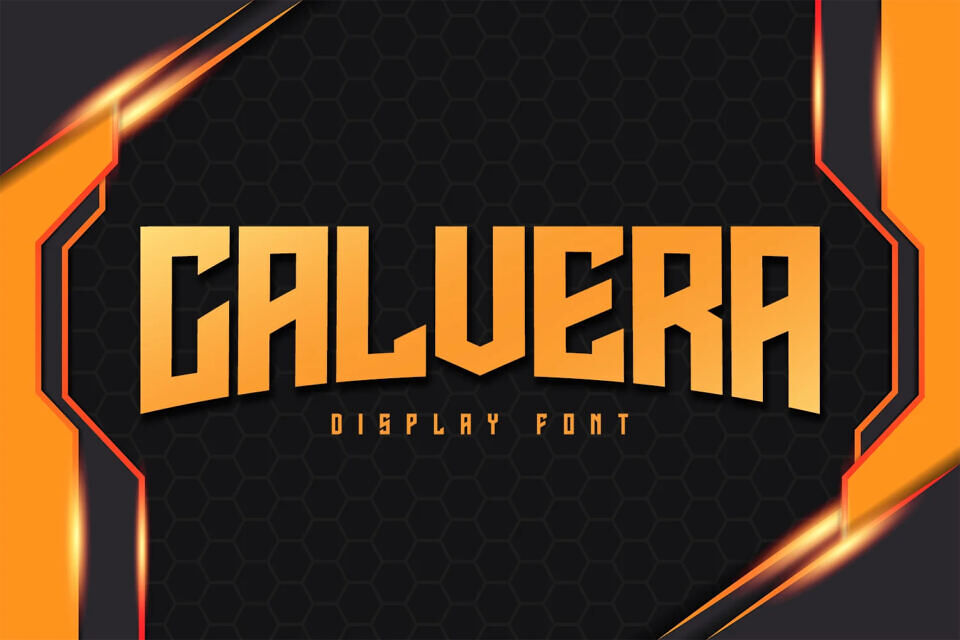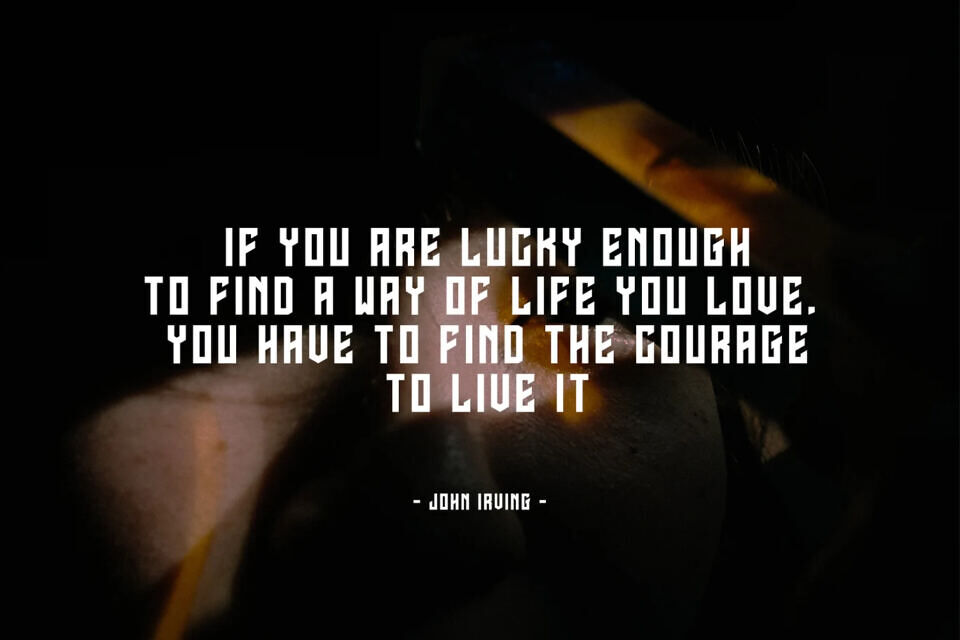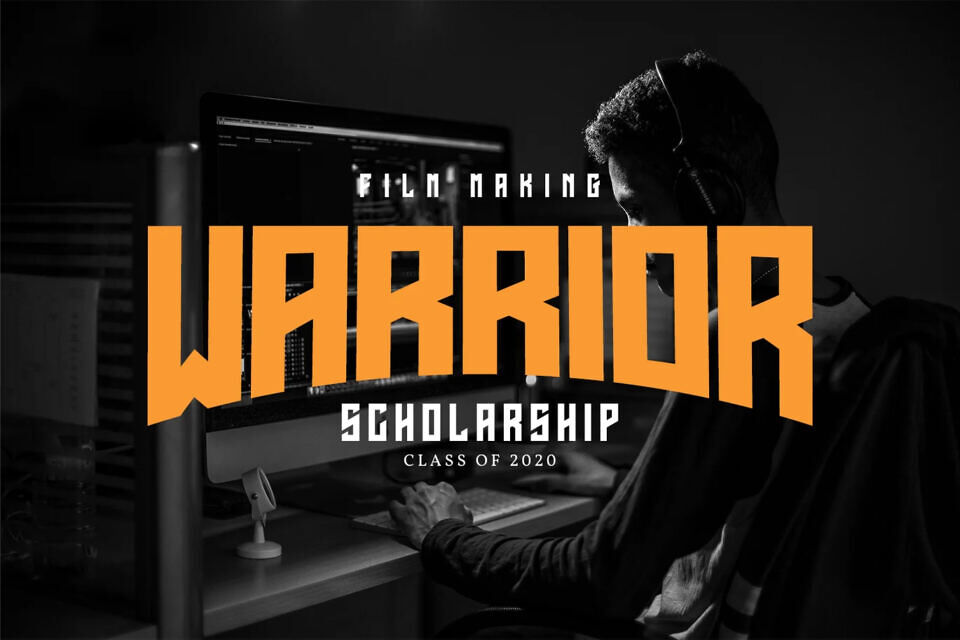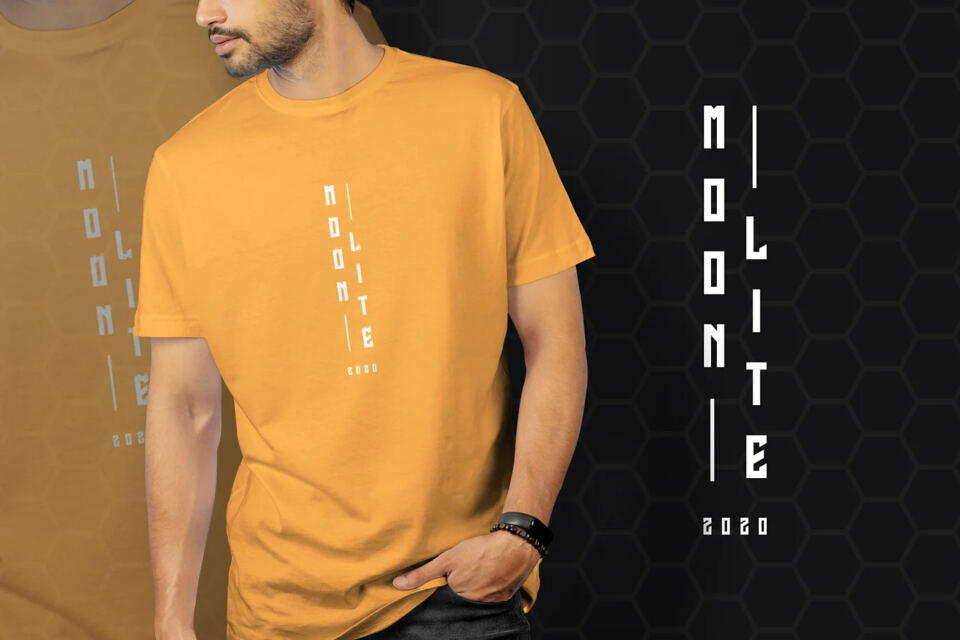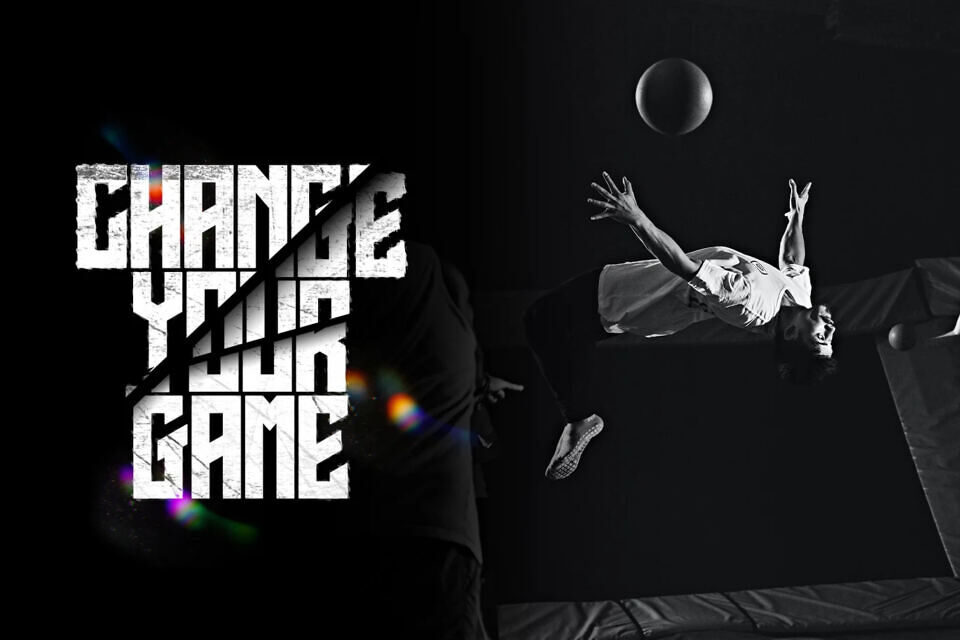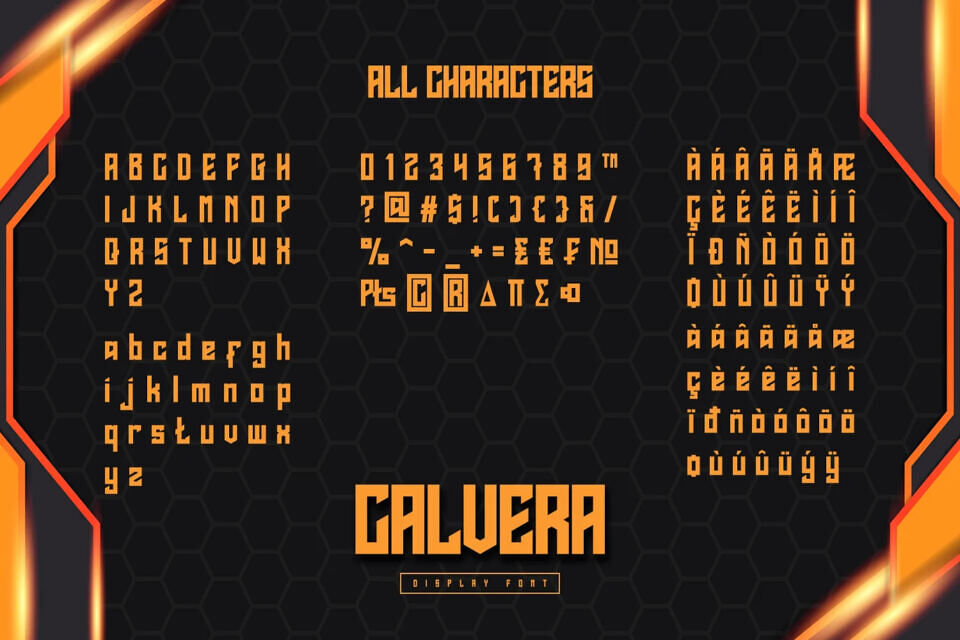
Calvera Font
Introducing the Calvera, a sleek e-sport font perfect for professional branding projects. Its unique design makes it ideal for logos, branding, and quotes, adding a touch of elegance to every letter.